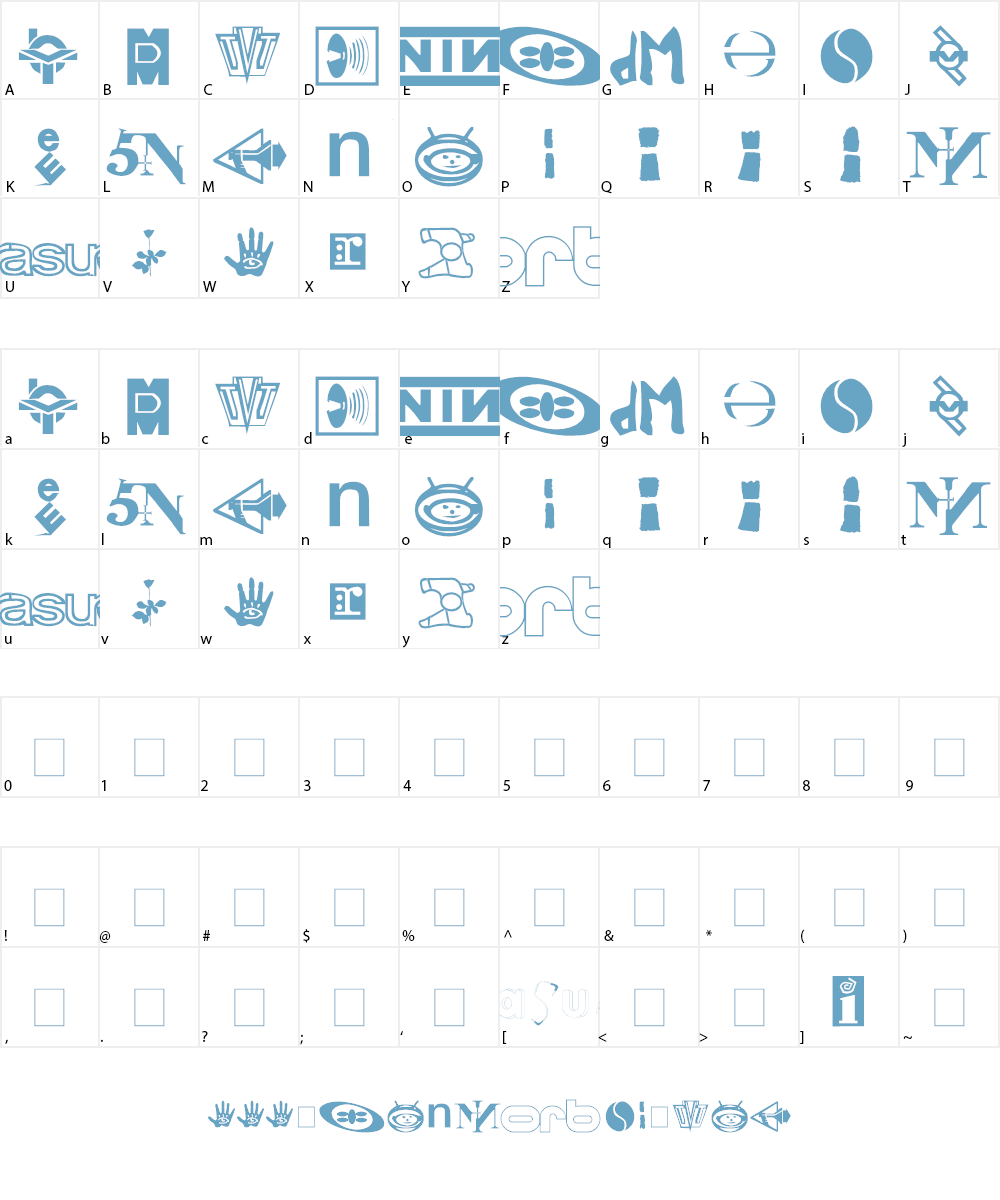
Here is a colection of band logoes and record company emblems for a
variety of Techno, Industrial, and Synthpop groups.
What kind of stuff is in here? Well...
Moby: The "Move" Moby logo
The Orb: Recent logo
Aphex Twin: Circular "A" logo
Depeche Mode: The Corbijn "dM", the "bong" horn, a Black Celebration
bullhorn, the "paintswashes" from SoFaD, the Black Celebration "DM"
banner and the "Violator" rose. (These guys get a lot of logoes, don't
they?)
Erasure: the "e" logo,"erasure" script logo, 3-d "I Say..." logo.
Nine Inch Nails: Gothic NIN, "Sin" and "NIN" logoes from the "Sin single,
and the backwards Broken "n."
808 State: The "Gorgeous" logo
Record Labels: Mute (old and new), Sire, Reprise, Instinct, TVT, Eletra,
Interscope
Misc: The U2 "Zooropa" Spaceman.